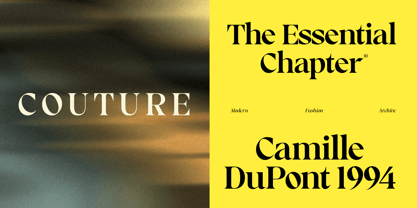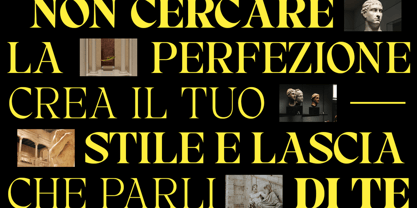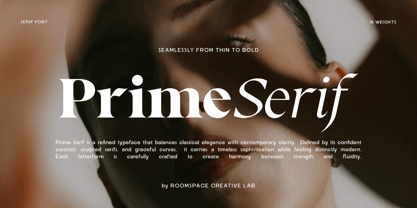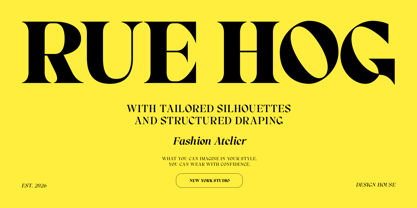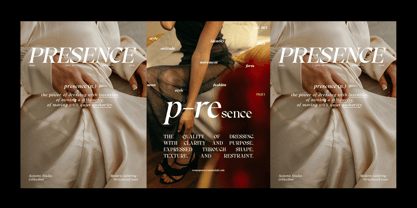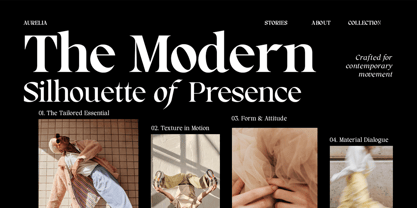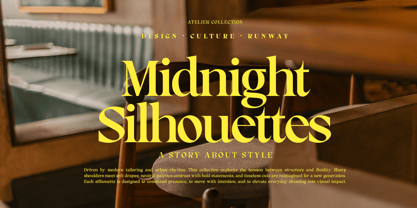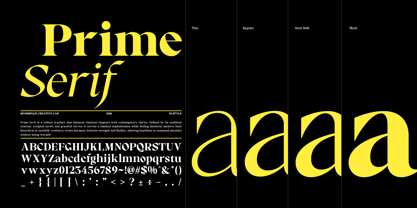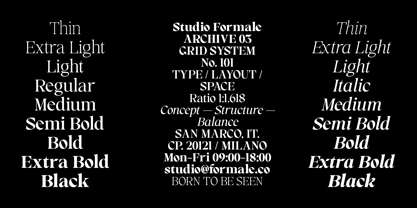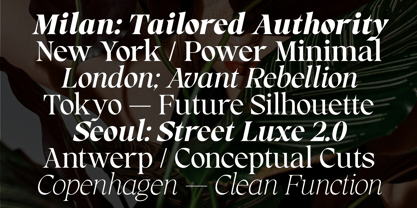
RCL Prime Serif
by Jafar07
The RCL Prime Serif Font Family was designed by Bakhrudin Ja'far and published by Jafar07. RCL Prime Serif contains 10 styles and family package options.
Prime Serif is a modern serif typeface family combining classical elegance with contemporary typographic clarity. With 18 weights ranging from Thin to Bold, the family offers flexibility for both expressive headlines and structured editorial typography. The carefully sculpted serifs, balanced contrast, and harmonious proportions create a sophisticated typographic system suitable for luxury branding, magazine design, and high-end visual communication. Prime Serif performs beautifully across print and digital environments while maintaining consistent readability and visual rhythm.
A little from my personal design & background: My name is Bakhrudin Ja'far, I live in Malang, Indonesia. I am currently completing my degree in visual communication design and I have worked as a lettering artist and logo designer for many years. I finally started my studio called roocspace creative lab (jafar07) Studio a few months ago and with my team made my letters into typography.